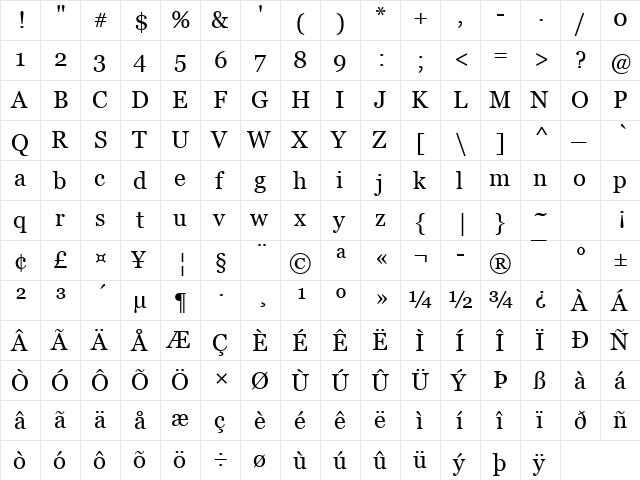
Georgia Ref Regular Font Preview
Georgia Ref Regular
Georgia Ref Regular Font Details
| Foundry | Microsoft Corp. |
| Designer | Matthew Carter |
Design Context for Georgia Ref Typeface
Georgia Ref is a composed and adaptable typeface that performs quietly and consistently across a wide range of design contexts.